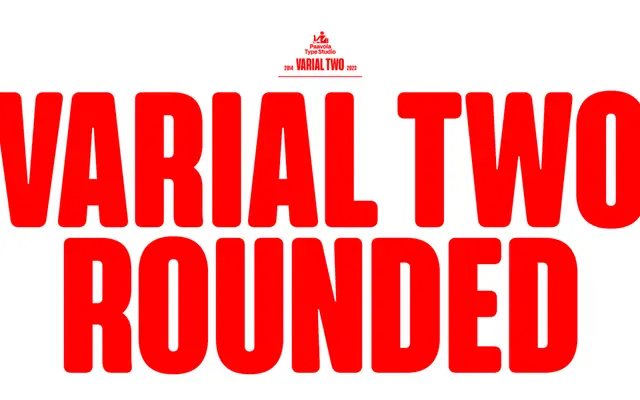
Varial Two Rounded
An extra-condensed grotesque with rounded terminals, offered in eight weights with italics, small caps and broad Latin language support.
Updated from the original Varial of 2014, this family applies rounded terminals to a narrow sans structure across eight weights from ExtraLight to Ultra, each with a matching italic. Small caps, discretionary ligatures, stylistic alternates and fractions are included as OpenType features, and the character set covers a wide range of Latin languages. Part of a planned trio alongside Varial Two and Varial Two Super Rounded.
An extra-condensed sans-serif with rounded terminals, updating the original Varial (2014); the narrow proportions and geometric softness place it firmly in the condensed grotesque tradition.